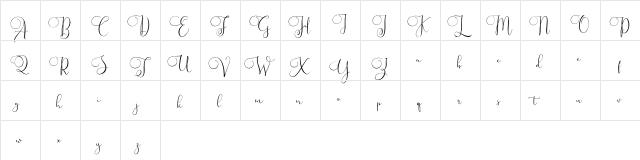
Vallerya FREE Regular
Design Context for Vallerya FREE Typeface
Vallerya FREE is a composed and adaptable typeface that performs quietly and consistently across a wide range of design contexts.